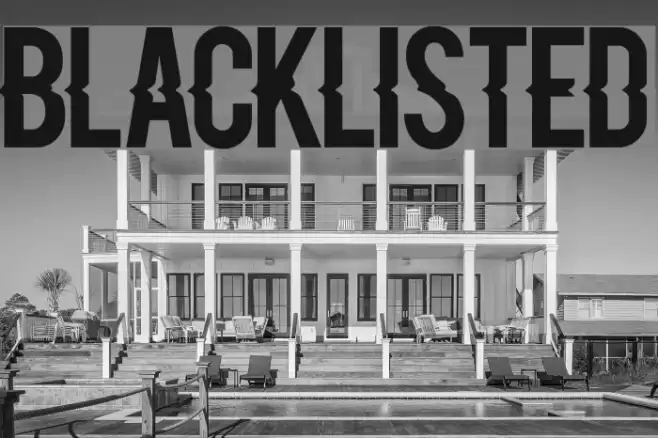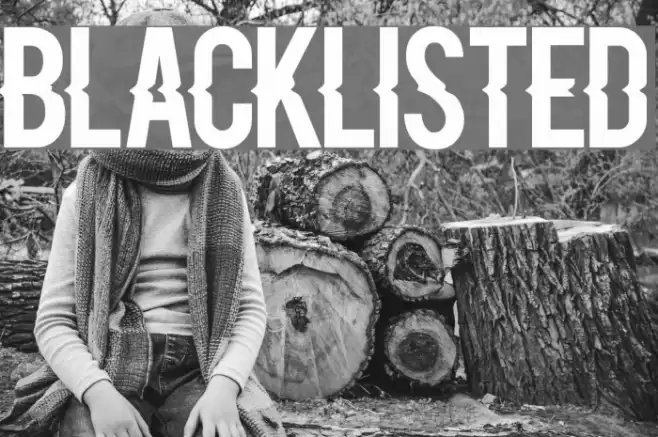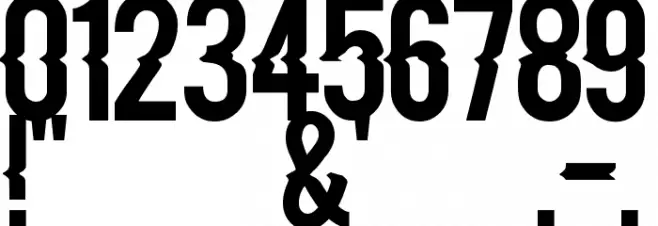
Blacklisted Font
Blacklisted Description
This font features a bold and striking design with a unique cut-out style that gives each character a distinctive, edgy appearance. The uppercase letters are particularly prominent, with thick strokes and sharp angles that create a sense of strength and modernity. The numbers and special characters maintain this bold aesthetic, ensuring consistency across all elements. The font's design is highly geometric, with a strong emphasis on vertical and horizontal lines, making it ideal for creating impactful headlines or logos. Its high contrast and wide character spacing contribute to its readability, even at smaller sizes.
A bold, modern font with a distinctive cut-out style and high contrast from Uncategorized fonts.
- Proposed Projects: Ideal for branding, poster design, and any project requiring a bold, modern aesthetic.
- Character Spacing: Wide